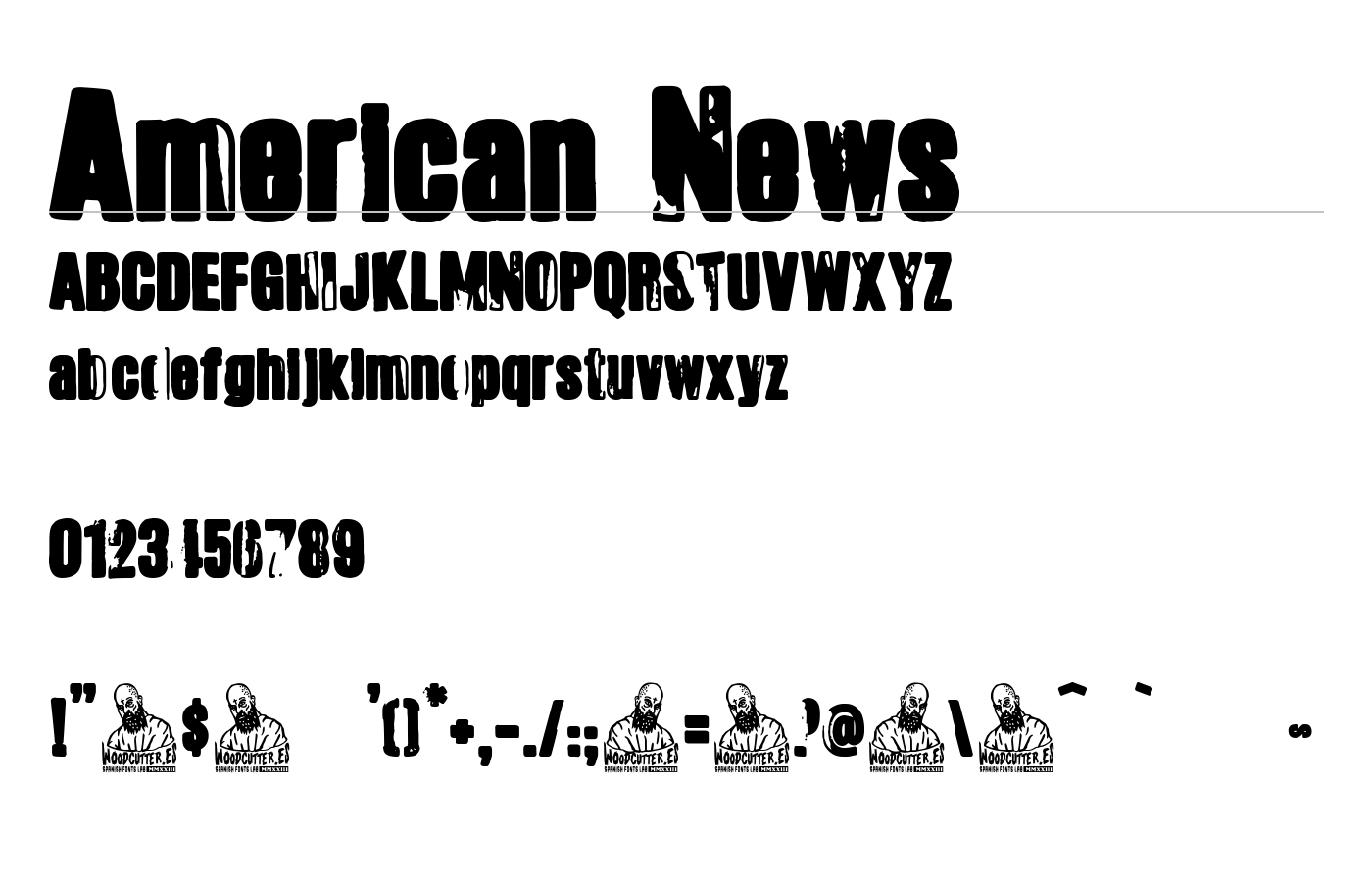
American News is a bold, condensed sans-serif font with a rugged, distressed texture that gives it a vintage, industrial feel. Its heavy weight and narrow letterforms create a strong, impactful presence, making it ideal for attention-grabbing headlines, posters, and branding with a gritty or retro vibe. This font works best in display settings where its unique worn details can add character and toughness to design projects.
American News Font
About American News Font